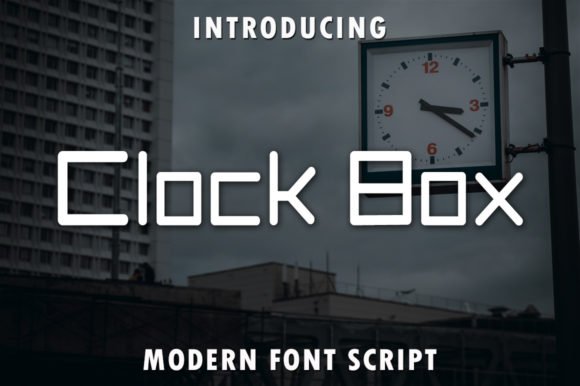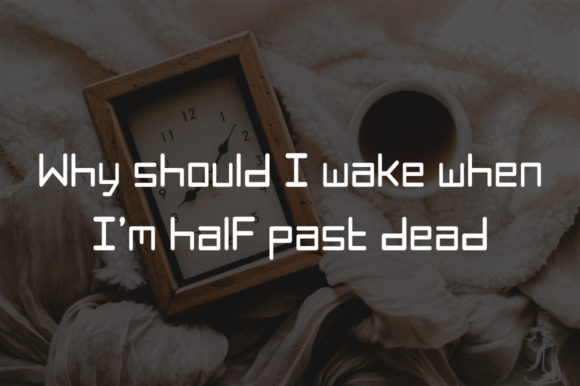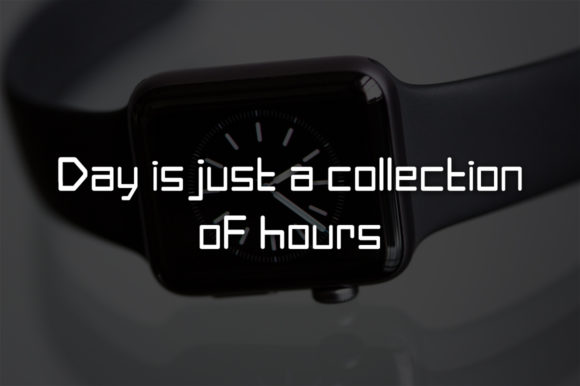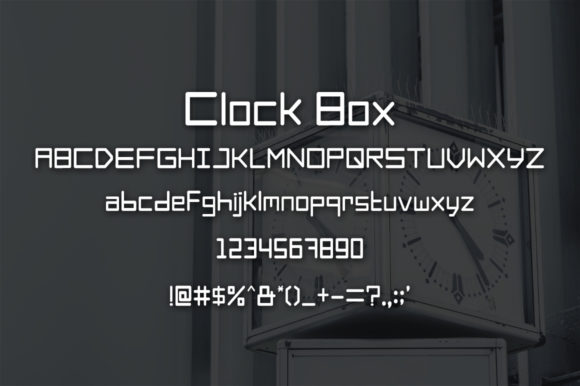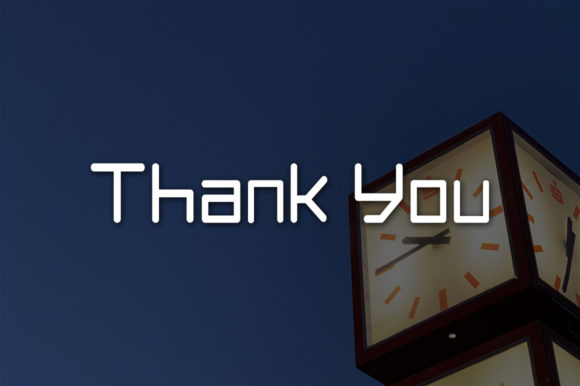
Enter the Clock Box Font – a sleek, geometric display font that’s perfect for making a statement. With its modern aesthetic, it’s sure to elevate any poster, flyer, or print design. Whether you’re working on a branding project or creating a bold advertisement, Clock Box Font is the perfect companion to help you achieve your creative goals.
What makes Clock Box Font so valuable for designers is its versatility and endless possibilities. From clean and minimalist to bold and eye-catching, this font is a game-changer for any design project. So why settle for ordinary when you can make a statement with the Clock Box Font?
Clock Box Font Key Features
- Unique Characteristics: Clock Box Font features a unique blend of analog clock and digital display elements, making it perfect for futuristic and tech-inspired designs.
Clock Box Font Review
Overall, I was pleasantly surprised by Clock Box Font. ✨ It has a unique, modern aesthetic that’s perfect for a wide range of applications. The font’s geometric shapes and clean lines give it a sense of sophistication and elegance.
- ✨ Unique and modern aesthetic
- ✨ Clean lines and geometric shapes
- ✨ Perfect for a wide range of applications
- ✨ Elegant and sophisticated feel
However, there are some limitations:
- ⚠️ Limited character set
- ⚠️ May not be suitable for small text sizes
- ⚠️ Can be difficult to read for those with visual impairments
Overall, I would recommend Clock Box Font for projects where a modern and elegant aesthetic is desired. However, it may not be the best choice for projects that require a large character set or readability for small text sizes.
Practical Application Guide: Clock Box Font
The Clock Box Font is a versatile and modern font that can be used in various graphic design applications. To use it, follow these steps:
To get the most out of the Clock Box Font, use it in bold headings and titles to create visual hierarchy and emphasis. Experiment with different font sizes and colors to add depth and contrast to your design.
The Clock Box Font is ideal for modern and minimalist designs, such as:
- Website headers and footers
- Social media graphics and ads
Alternatives to Clock Box Font for Designers
Open Sans is a clean, modern sans-serif font suitable for digital applications, signage, and body text. It’s a great choice for websites and mobile apps due to its readability and versatility. Open Sans is a more formal and straightforward font compared to Clock Box Font, which has a more playful and nostalgic feel.
Lato is a modern sans-serif font with a friendly and approachable feel. It’s ideal for use in branding, advertising, and digital media. Lato is a more versatile font than Clock Box Font, with a wider range of font weights and styles available. However, Clock Box Font has a unique, vintage-inspired aesthetic that Lato lacks.
Montserrat is a geometric sans-serif font inspired by urban typography. It’s a great choice for use in digital applications, signage, and branding. Montserrat is a more modern and edgy font compared to Clock Box Font, which has a softer, more nostalgic feel. However, Montserrat can be used to create a similar vintage-inspired aesthetic with the right design.
Alegreya is a serif font with a vintage, elegant feel. It’s a great choice for use in print materials, such as books and magazines. Alegreya is a more formal and sophisticated font compared to Clock Box Font, which has a more casual, playful feel. However, Alegreya can be used to create a similar nostalgic aesthetic with the right design.